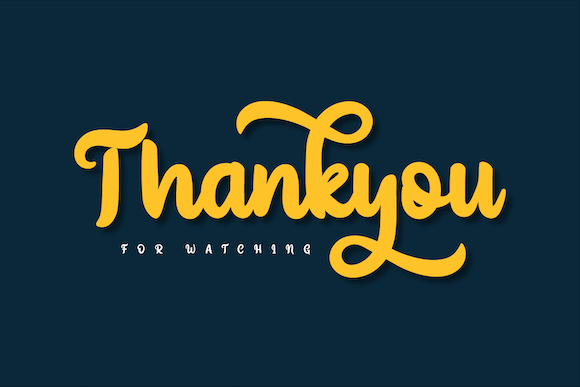
- Yegufet – Handwritten Script Font
Yegufet – Handwritten Script Font features a casual yet elegant touch, showcasing a natural and authentic hand-drawn style. This font is designed to give a relaxed feel while maintaining a strong aesthetic appeal. Perfect for branding that needs a personal and heartfelt character, Yegufet brings your designs to life with lively expression. Its slightly slanted design adds a dynamic feel, making it suitable for motivational quotes, social media designs, and striking logos. Its flexibility makes it a popular choice for various creative projects, from posters to merchandise.
Yegufet not only offers visual beauty but also reliable clarity in applications that require a clear and eye-catching result. If you’re looking for a font with unique personality and smooth flow, Yegufet is the answer.
It perfectly balances natural handwriting beauty with professional style.